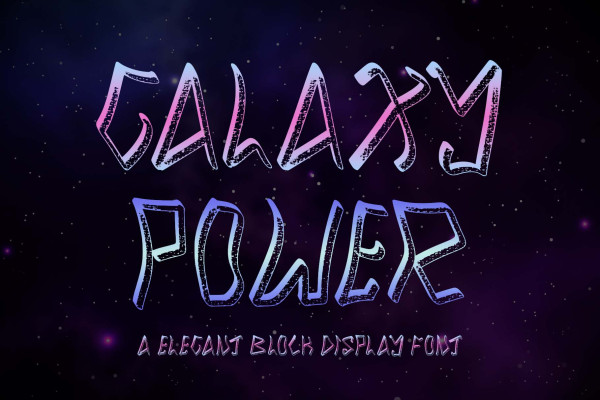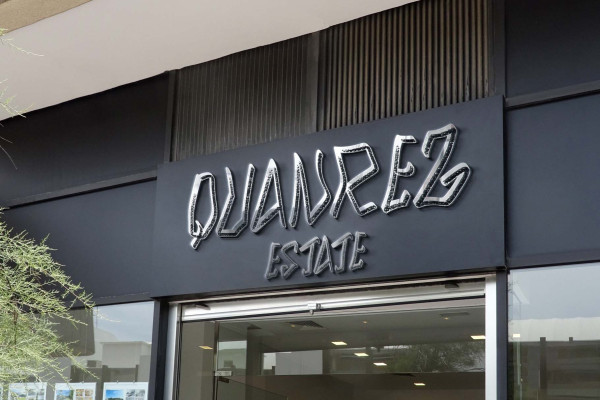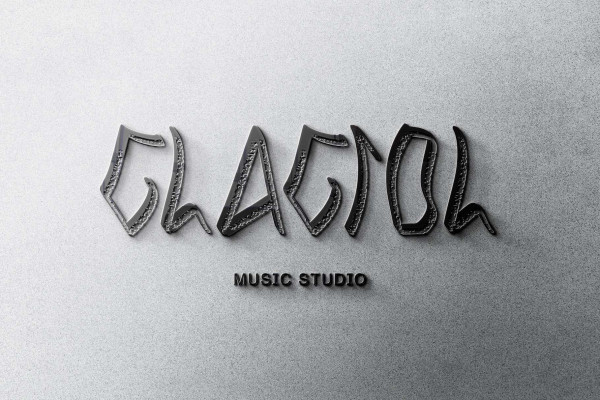
Galaxy Power Font
Galaxy Power Font is an elegant display block font that is perfect for action movie titles, graffiti, 3D works, advertisements, banners, posters, branding, stickers, mockups, and more. This font is equipped with uppercase, lowercase, numerals, punctuation, and multilingual support.